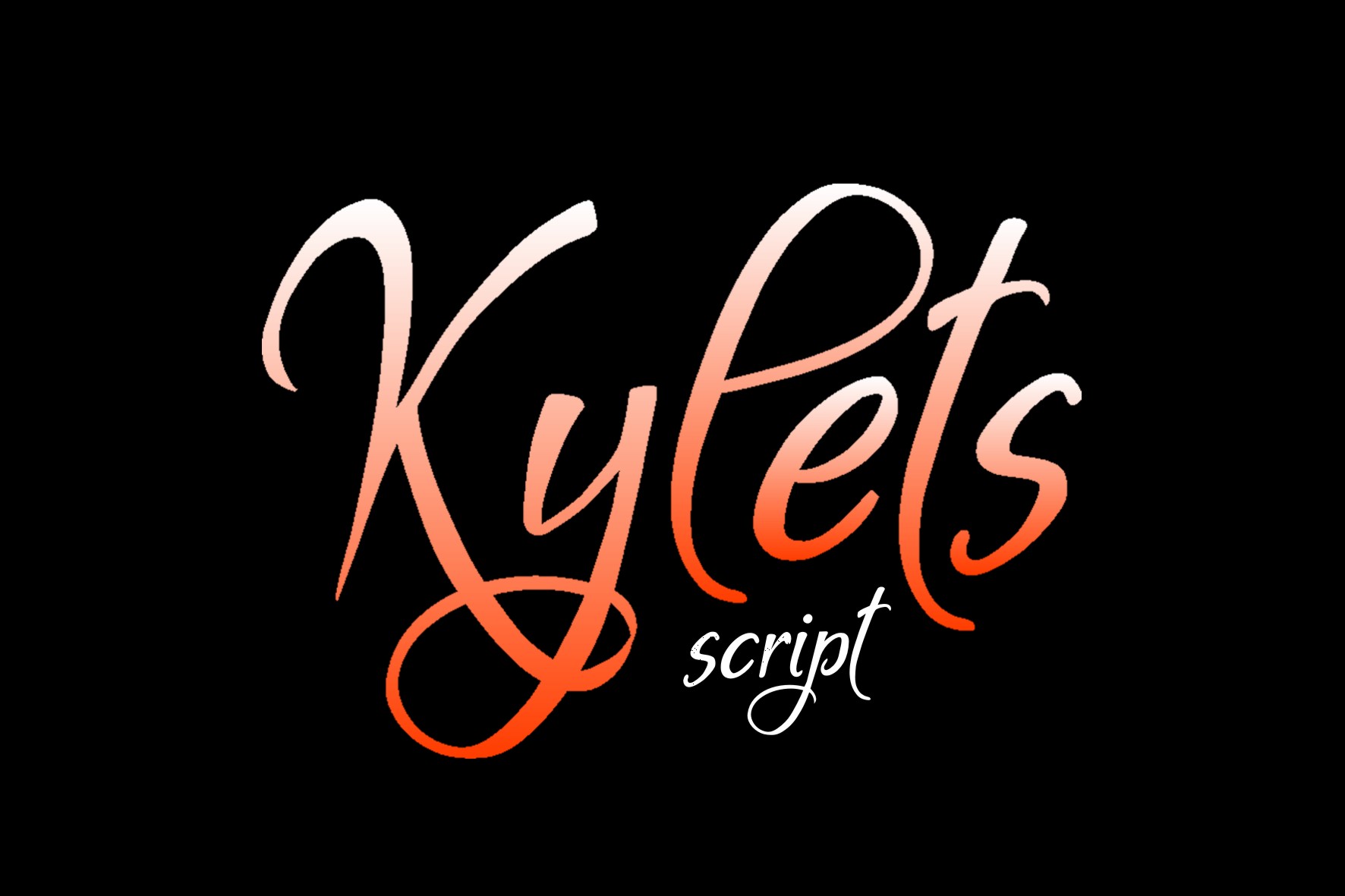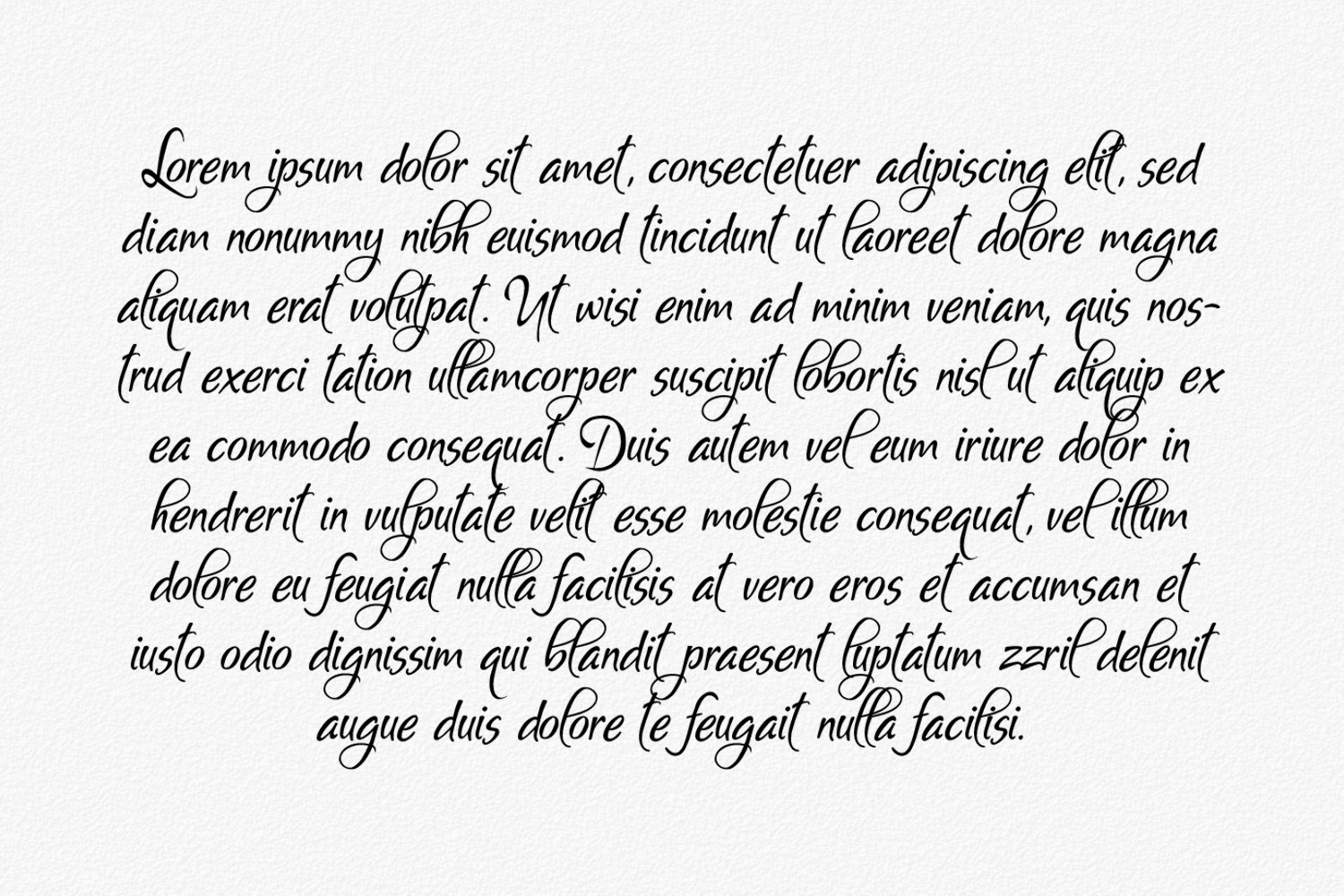
Kylets Font – Free Download
Introduction to Kylets Font
Kylets is a beautiful and well weighted script font, perfect for embellishing your designs and adding just the right amount of romance.
On trend and timeless, Kylets is a very versatile script font Add Kylets to your script collection today.